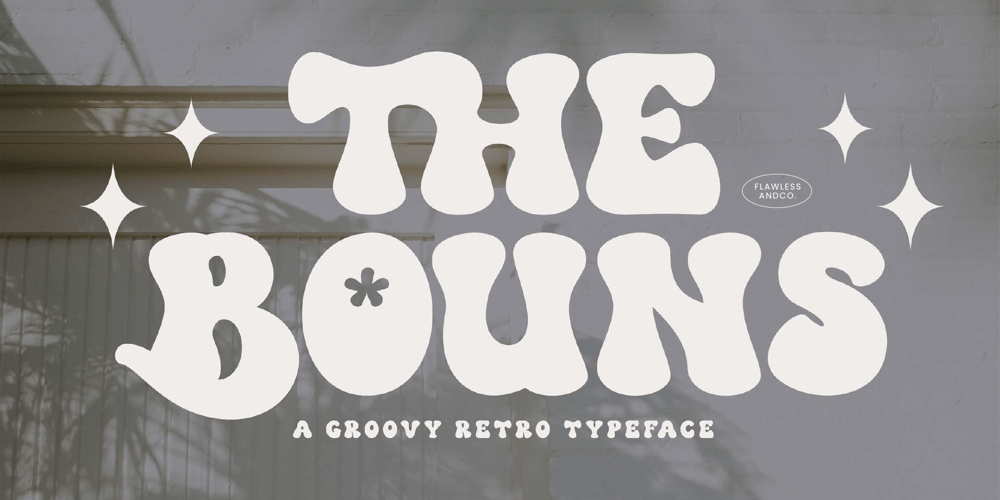
The Bouns
The Bouns font
The Bouns Font Family was designed by Achmad Yani and published by Flawlessandco. The Bouns contains 1 styles and family package options. The Bouns is a Groovy Retro Font with fun and elegant style, so it’s fitted for some retro project.There’s some connected letters and some alternates that suitable for any graphic designs such as branding materials, t-shirt, print, business cards, logo, poster, t-shirt, photography, quotes .etcThis font support for some multilingual. Also contains uppercase A-Z and lowercase a-z, alternate character, numbers 0-9, and some punctuation.If you need help, just write me! Thanks so much for checking out my shop!